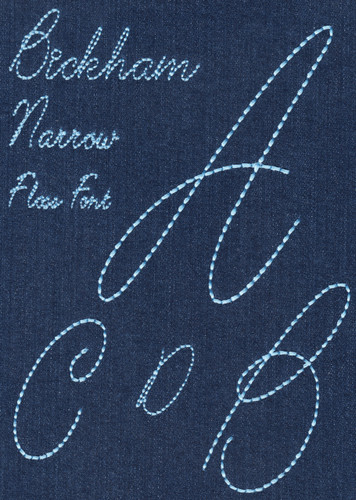
737 Bickham Narrow Floss Font
737 Bickham Narrow Floss Font comes in 0.5", 0.75", 1", 1.5", 2", 2.5", 3", 3.5" & 4" heights based on the capital "A". All sizes include uppercase letters, lowercase letters, numbers and ten punctuation marks. Lowercase letters stitch left to right with matching connection points to help reduce jump stitches when setting up words and names; alternate versions of the "r" and "s" with lower left side starting points are also included for words in which "r" or "s" comes directly after the capital letter Shift+4 or $ = alternate r --- Shift+5 or % = alternate s). All characters are finished in single line Floss Stitch as described in FAQ # 14. Lowercase letters are less than half the height of capital letters so it's necessary in the 1" and smaller sizes to make sure you are using the proper amount of project stabilization to avoid fabric pull and puckering.